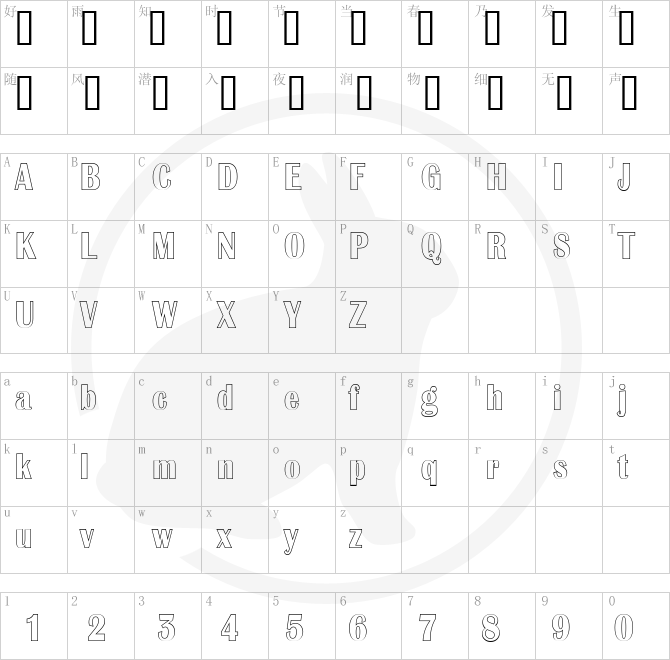
- Font Name:a_AlbionicNrOtl
- Subfamily:a_AlbionicNrOtl
- Full Name:a_AlbionicNrOtl
- PostScript:AAlbionicNrOtl
a_AlbionicNrOtl.ttf is a very beautiful artistic font, a_AlbionicNrOtl.ttf is widely used in the design and printing of various books and pictures,a_AlbionicNrOtl.ttf has a strong visual impact,a_AlbionicNrOtl.ttf is a commonly used font in newspapers, magazines and books, and is used in posters, e-commerce Poster design, store design, logo design, font design and other fields.a_AlbionicNrOtl.